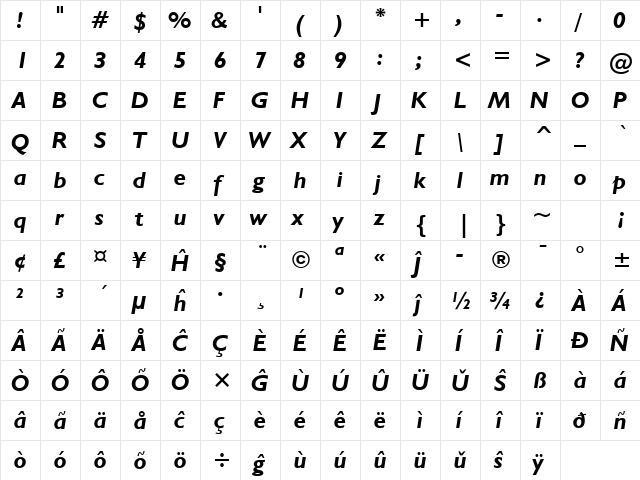
Humanst521 BT Eo Bold Italic Font Preview
Design Context for Humanst521 BT Eo Typeface
Humanst521 BT Eo offers clean, dependable letterforms without strong stylistic allegiance, making it a practical choice for designers who need flexibility. Its italic angle brings a sense of urgency and motion to the letterforms. The heavy weight commands attention and anchors typographic hierarchies.
Pro Tip: Try Humanst521 BT Eo for annotation and caption copy alongside an upright companion — the contrast in angle creates a dynamic but ordered typographic system.